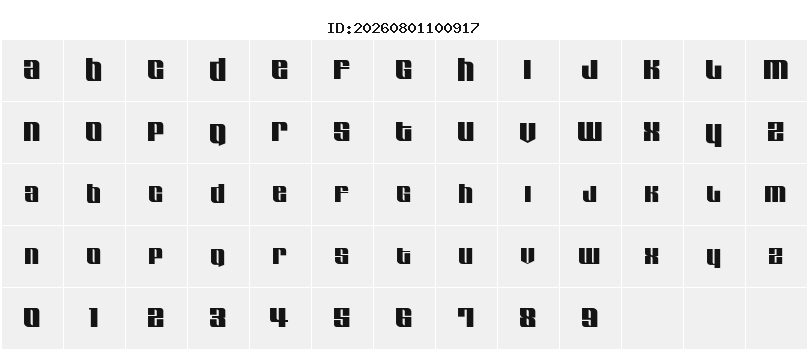
LHF Sugargirl Preview
• Font Name: LHF Sugargirl
• Full Font Name: LHF Sugargirl Regular
About LHF Sugargirl.ttf
LHF Sugargirl.ttf is a modern, elegant sans-serif font designed for ultimate readability and visual harmony. Perfect for branding, headlines, web design, and print materials.